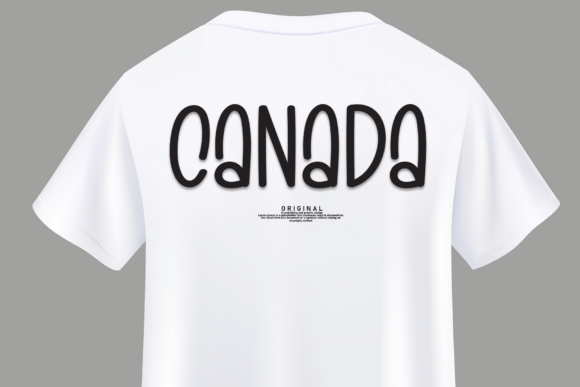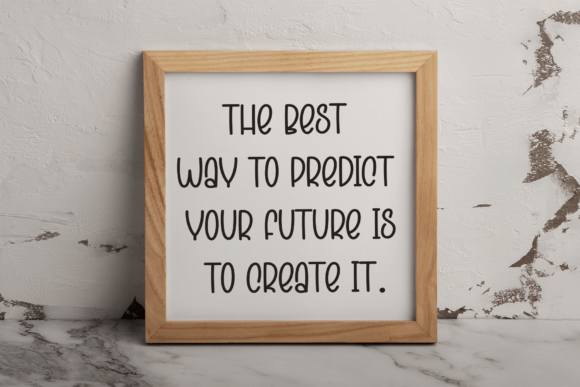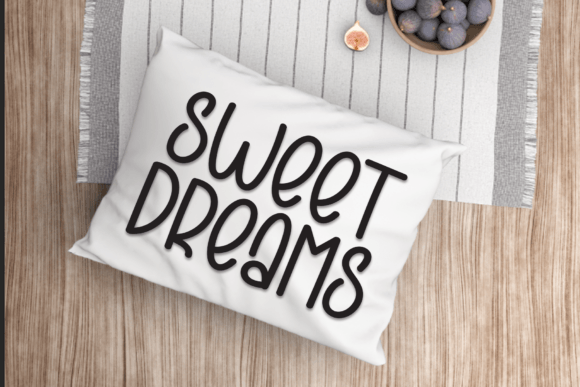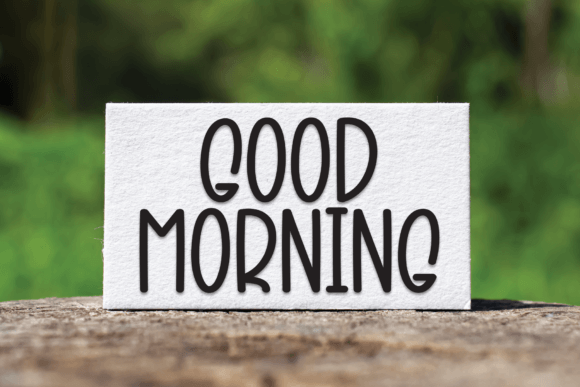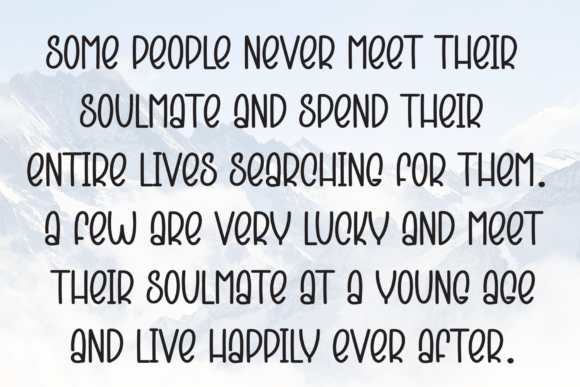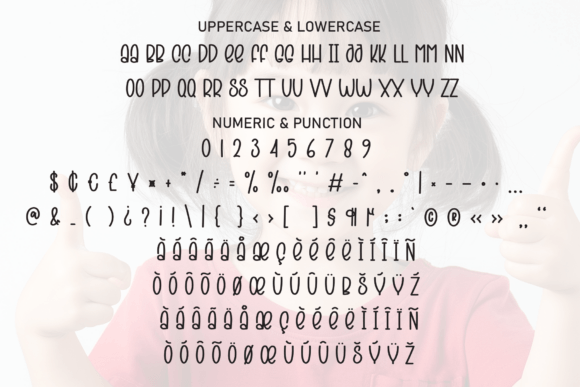
Introduction to Smiley Children Font
Smiley Children is a playful, handwritten font that looks like it was created by kids.
It has a fun and cheerful style, making it perfect for projects related to children, like invitations or crafts .
Key Features of Smiley Children Font
Why Choose Smiley Children Font?